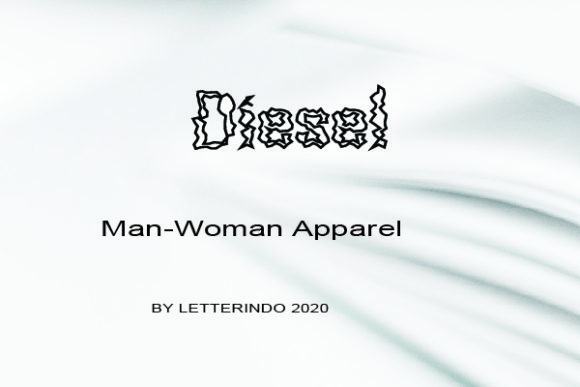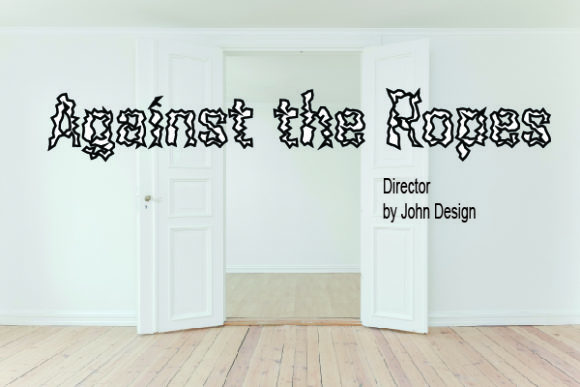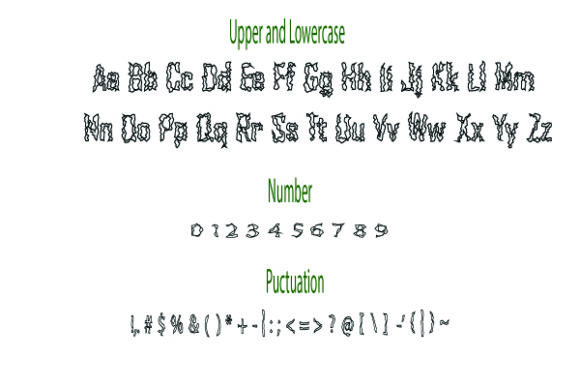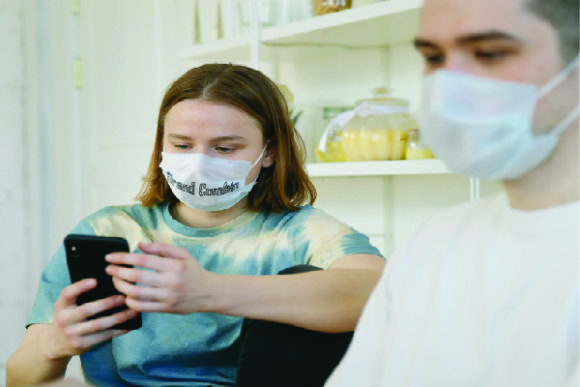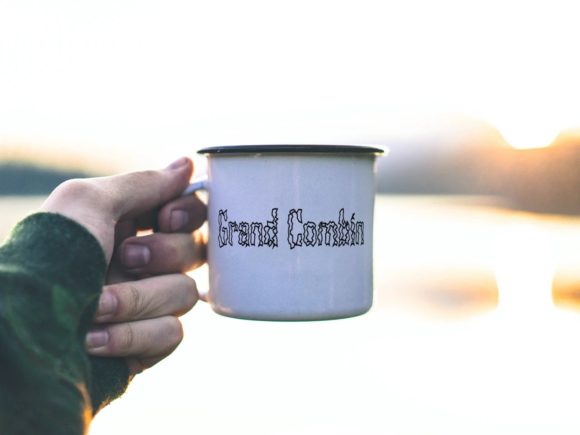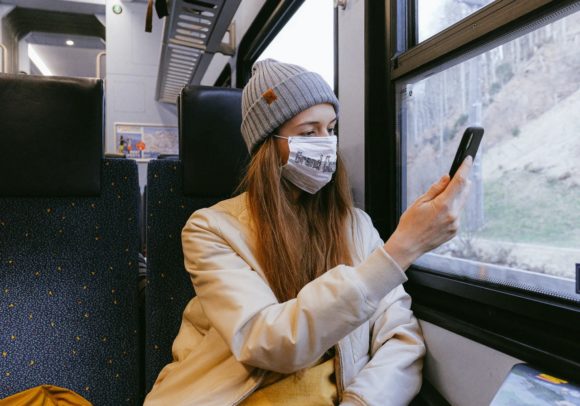
The Grand Combin Font: A Quirky Handwritten Gem for Creative Projects
I’ll never forget the time I was working on a branding project for a crafty client, and I was stuck on finding the perfect font. The client wanted something that would stand out, something with personality, but not too quirky. I scoured the internet, tried out dozens of fonts, but nothing seemed quite right. That was until I stumbled upon the Grand Combin font. ✨
This quirky handwritten font has an original feel that instantly caught my attention. Its unique charm makes it perfect for logos, branding, social media, and crafty DIY projects. In this article, I’ll share my honest review of the Grand Combin font, provide a practical guide on how to use it, and explore similar fonts you might love.
- ✅ Unique and quirky feel that’s sure to make your designs stand out
- ✨ Handwritten with a personal touch, adding warmth to your designs
- ✅ Perfect for creative projects, from logos to social media graphics
- ✅ Highly versatile and can be used for both digital and print projects
The Not-So-Perfect
While the Grand Combin font is amazing, there are a few quirks to be aware of: 🤔
- ⚠️ Some characters may not work well in very small sizes, so use it wisely
- ⚠️ Limited language support, so double-check if your language is supported
- Experiment with OpenType features, such as glyphs and stylistic alternates, to add more personality to your text
- Choose the Grand Combin font and explore OpenType features, such as swashes and ligatures, to add more flair to your text
The Story Behind Grand Combin
The Grand Combin font was inspired by the majestic mountain peaks of the Swiss Alps. The designer aimed to capture the essence of adventure and exploration in this quirky handwritten font. With its unique feel and personality, Grand Combin is sure to add a touch of excitement to your designs.
Q: What type of projects is Grand Combin suitable for?
A: Grand Combin is perfect for creative projects, such as logos, branding, social media graphics, and crafty DIY projects.
Q: Is Grand Combin a difficult font to read?
A: While Grand Combin has a unique feel, it’s still relatively easy to read, especially in larger sizes.